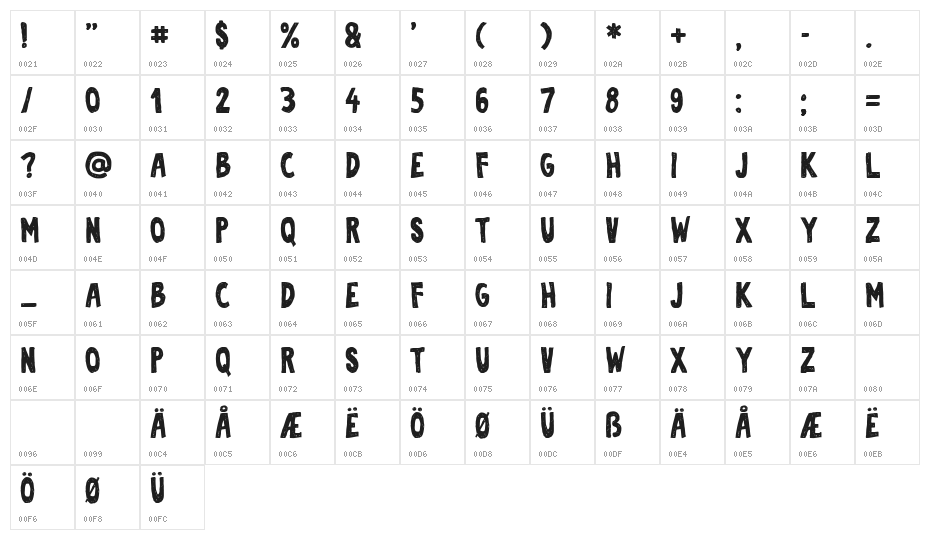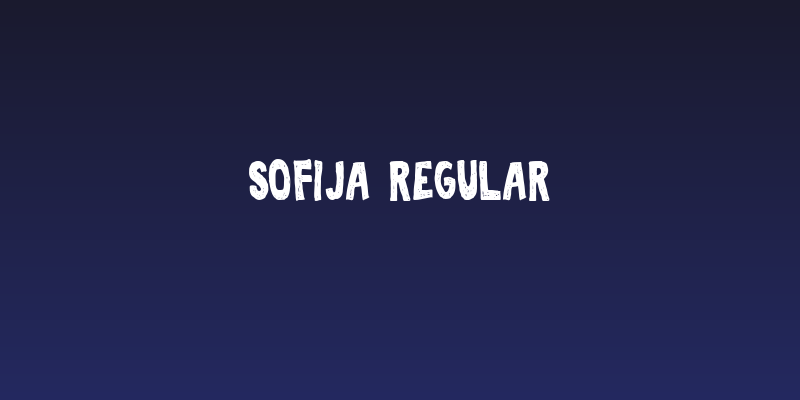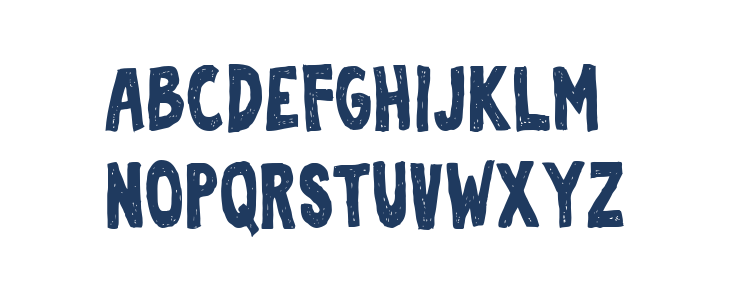
Sofija Regular Font
Sofija Regular Description
This font features a bold and playful style with a hand-drawn appearance. The characters are thick and slightly irregular, giving them a casual and artistic feel. The texture within each letter adds a unique, almost distressed look, making it stand out in creative projects. The uppercase and lowercase letters maintain a consistent design, while the numbers and special characters complement the overall aesthetic. This font is ideal for projects that require a fun and informal touch, such as posters, children's books, or playful branding.
| Proposed Projects | Ideal for posters, children's books, playful branding, and creative designs. |